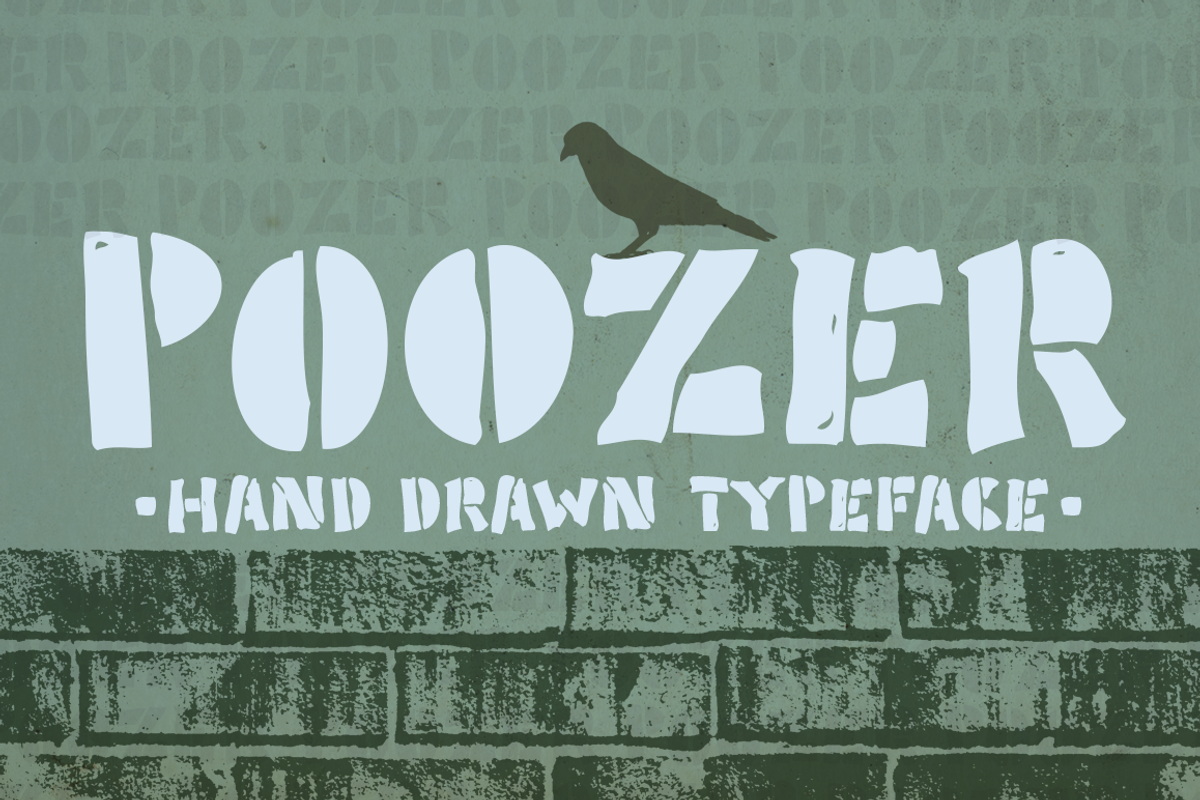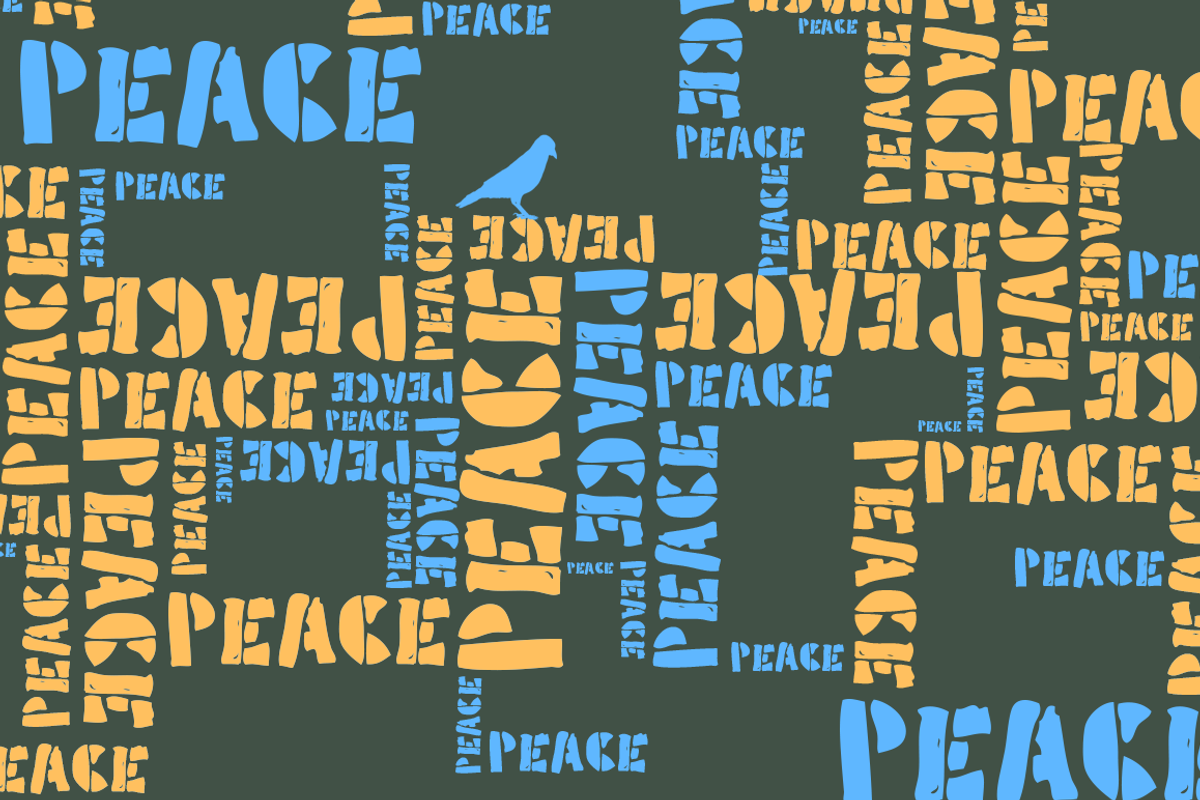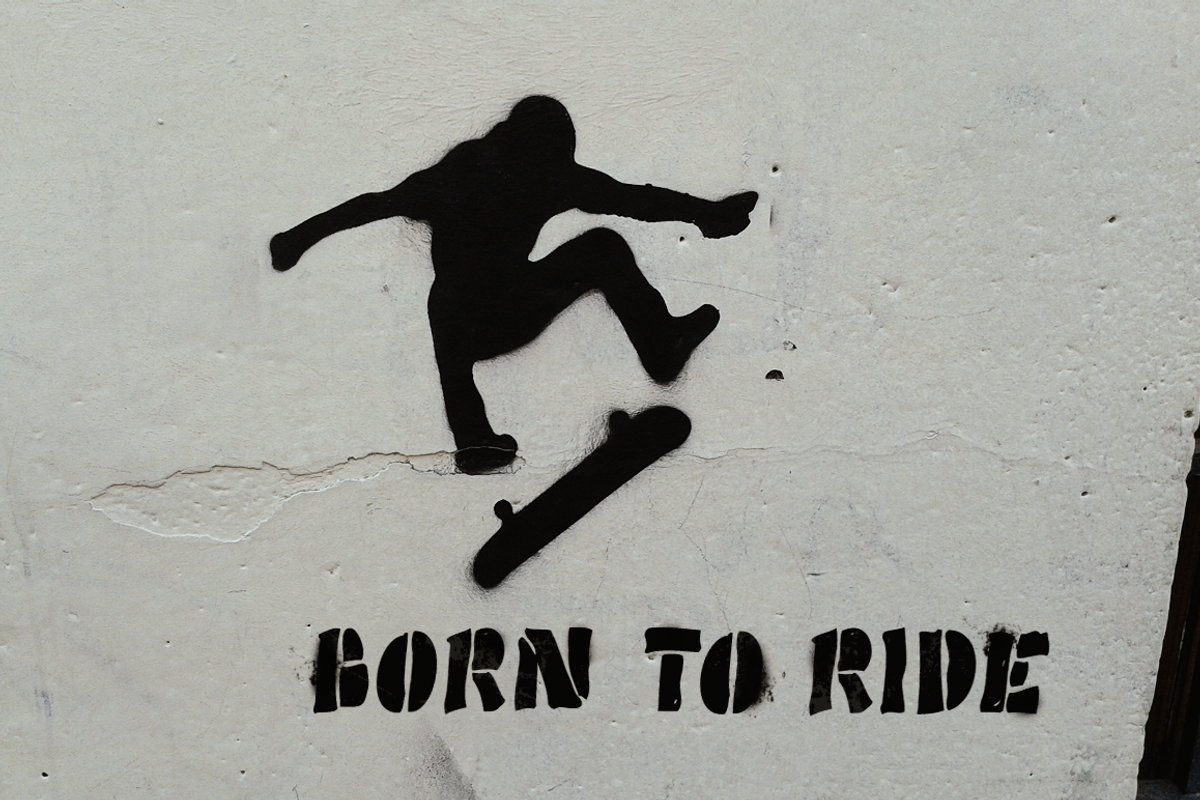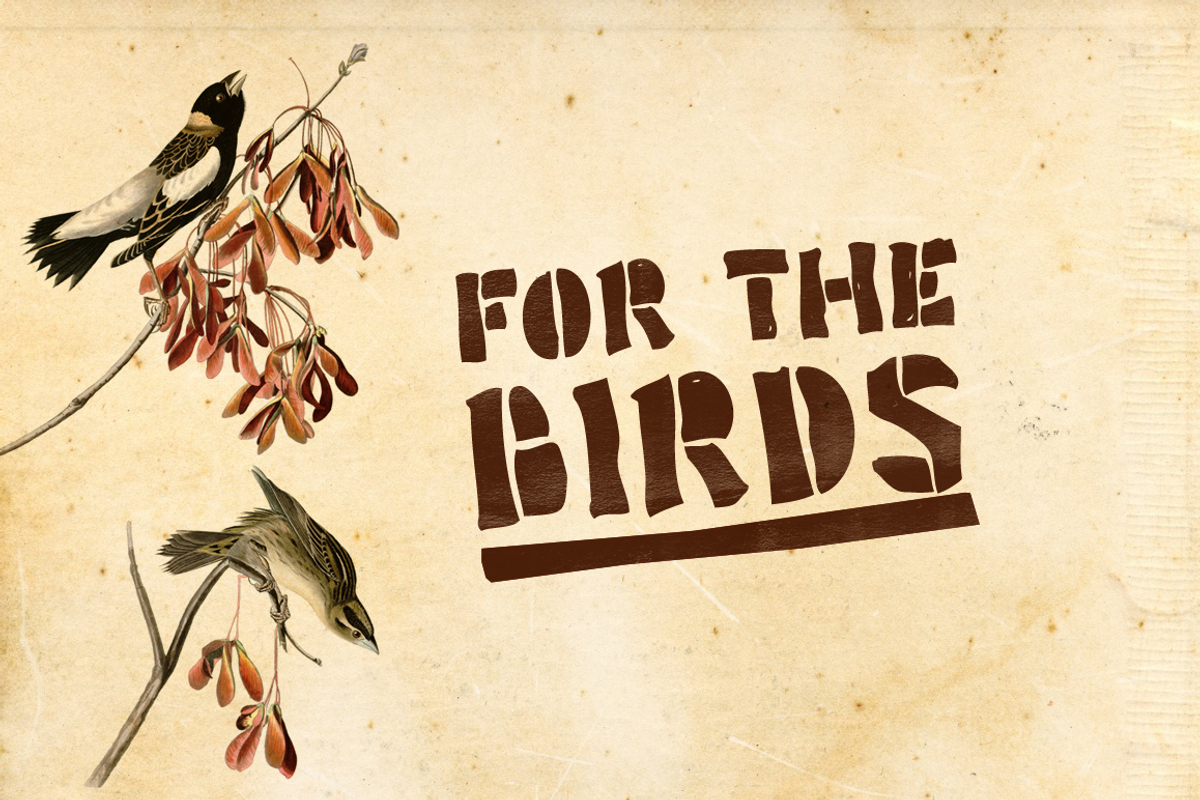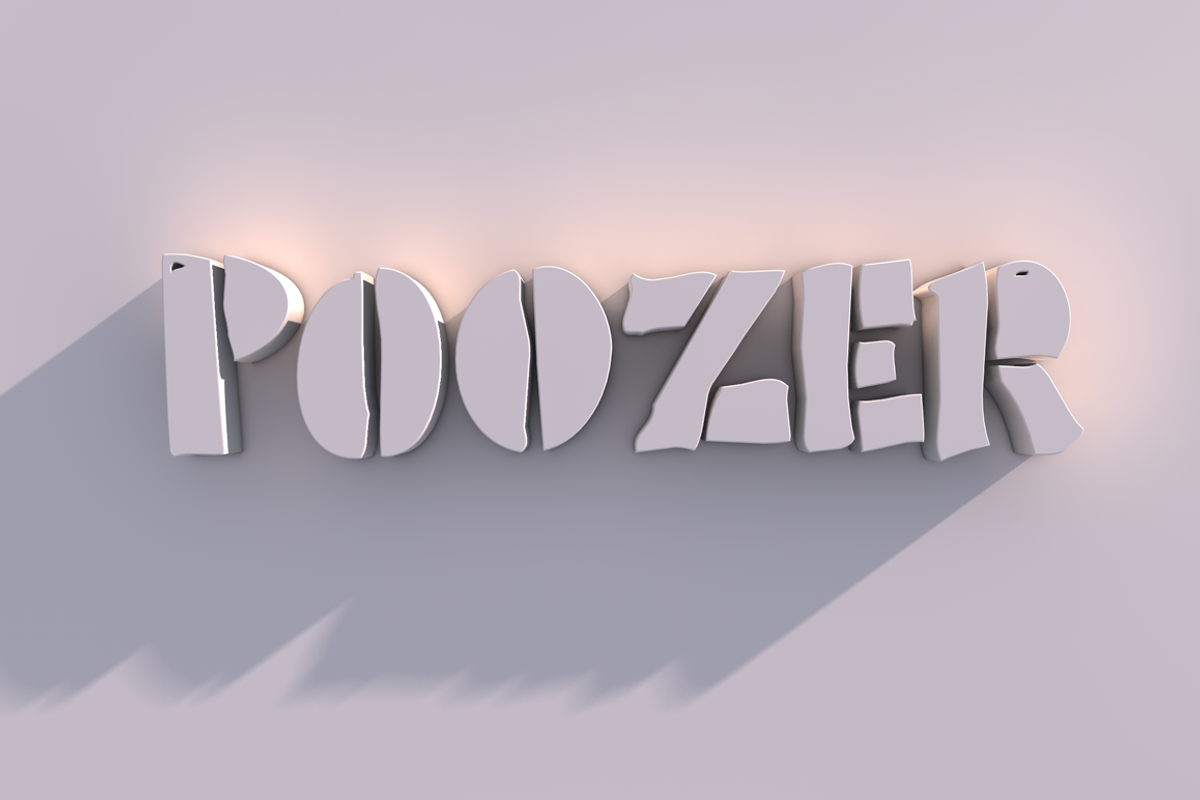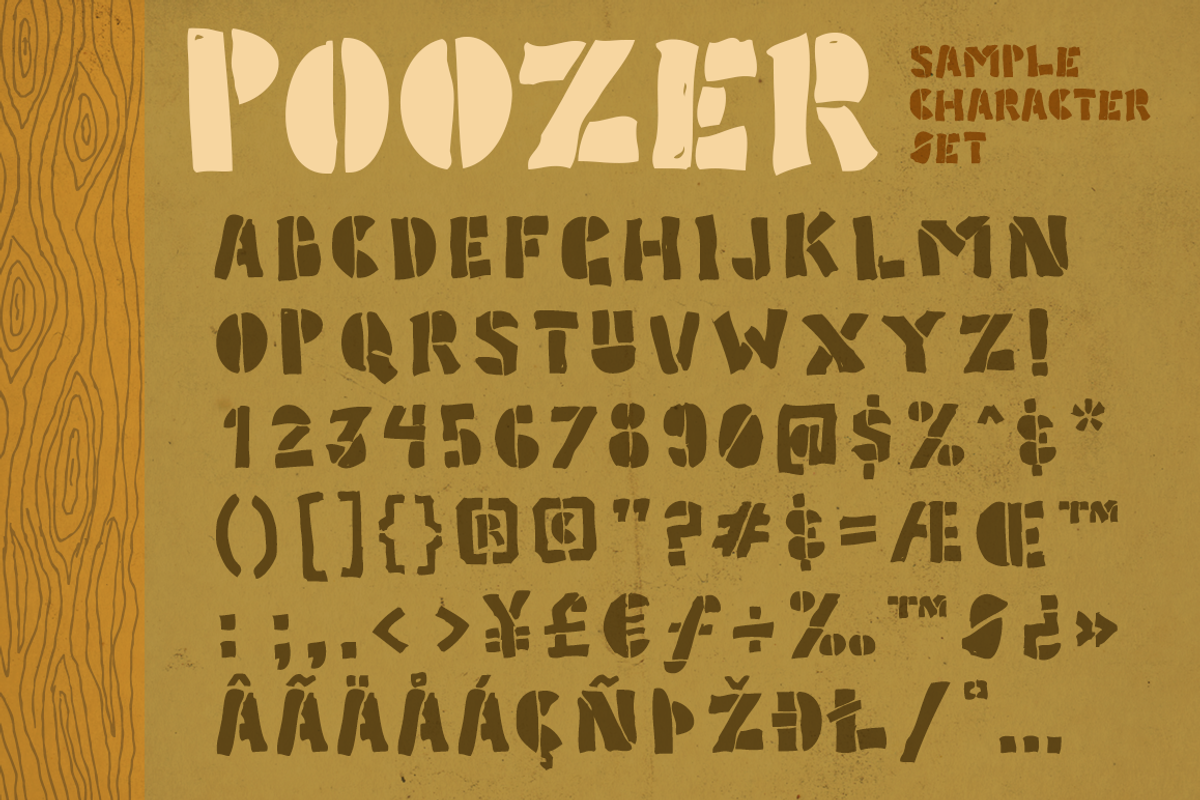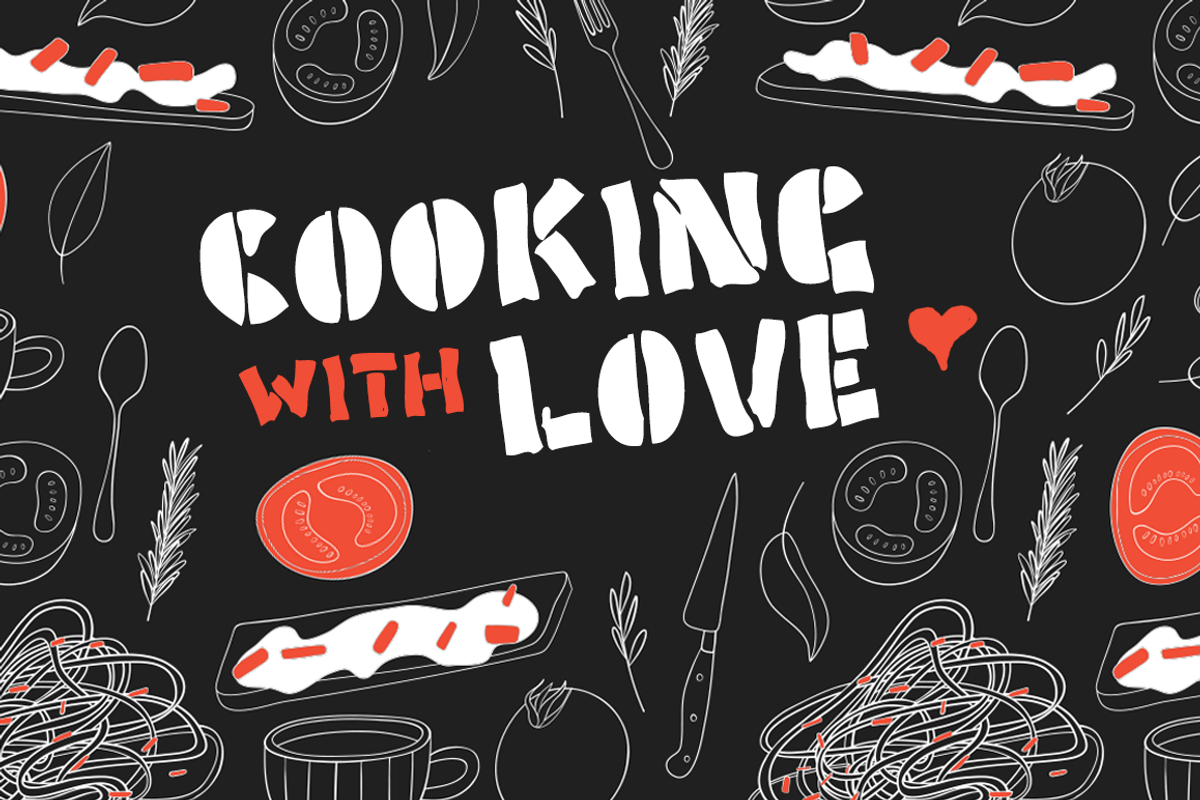
Poozer
Poozer is a hand drawn/painted font on a mission. This display face is based on some doodles I started while on the phone with my sister. It is an all-caps typeface, but upper & lower cases contain variations to keep things interesting. It's also a stencil font so don't forget to use it for that too. Poozer includes a full set of numbers, punctuation and accents.
- Poozer includes a full set of numbers, punctuation and accents.